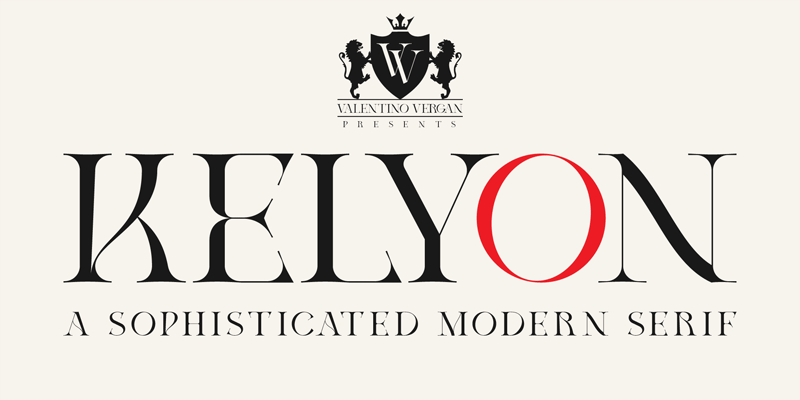
Kelyon is a sophisticated and modern serif, inspired by the late Middle Ages and early renaissance period. Kelyon was designed with a very thin hairline and long serifs, this reflects the charm and feel of the 14th century. With over 60 stylistic ligatures, Kelyon is great for headlines and short to medium texts. Kelyon is compatible with 93 languages and contains 439 glyphs, including several alternatives. This font is free for PERSONAL USE. If you need more information you can contact me at: valentinovergan@gmail.com _____ FOR PERSONAL AND COMMERCIAL USE, please download here: https://fontbundles.net/valentinovergan/2358792-kelyon-modern-serif _____ My work: https://www.behance.net/valentinovergan https://www.instagram.com/valentinovergan |